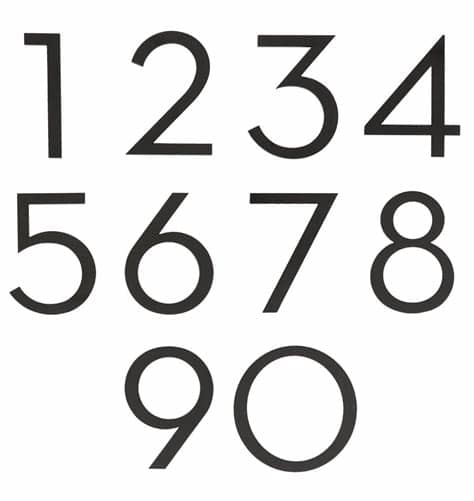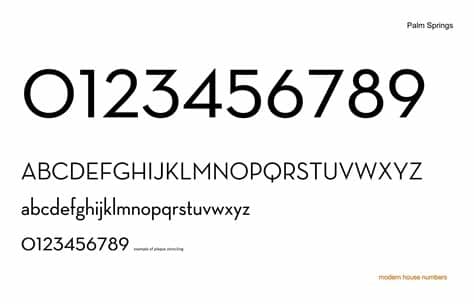
Eshner Mid Century Modern Font Numbers - Mid-Century Modern Ornaments Font ~ Symbol Fonts ... : Mid century modern record console.. Included are opentype and truetype versions of the font as well as some demo files. Enter your mobile number or email address below and we'll send you a link to download the free kindle app. Check out our mid century modern house numbers selection for the very best in unique or custom, handmade pieces from our home décor shops. I don't know if there's a rule among encyclopedia editors that all entries must be nouns, but i can't think of an entry that isn't. | explore the new looks online and in store starting 3/26.
Flipping through the britannica, i find nothing but nouns of one sort or another. I think a few things have been changed, like the elongated f. Browse by alphabetical listing, by style, by author or by popularity. This sans serif font from pixel the geometric digits that come with this font are perfectly suited for clock faces, phone numbers, and apps. This is a font that was used for an apartment complex that was built in the 1950's. The entire collection of modern house numbers products have been selected to meet the highest standards for architectural style and quality. When it comes to functional modern typography, manrope is the real deal. Mid century modern record console.
Palm springs tour of mid century modern homes. Has been added to your cart. A blog devoted to mid century modern design, furniture, designers, architecture, art, diy projects and other tidbits. Modern address numbers, letters, plaques and mailbox numbers. This font includes 62 unique hand crafted characters in all. The entire collection of modern house numbers products have been selected to meet the highest standards for architectural style and quality. Classics (baskerville, futura, garamond) alongside hot new fonts (resolve sans, larken,tt marxiana). Check out our mid century modern house numbers selection for the very best in unique or custom, handmade pieces from our home décor shops. This is a font that was used for an apartment complex that was built in the 1950's. I think a few things have been changed, like the elongated f. I don't know if there's a rule among encyclopedia editors that all entries must be nouns, but i can't think of an entry that isn't. When it comes to functional modern typography, manrope is the real deal. It pares down a design to its most essential elements and in this way promotes clear visual communication.
Modern address numbers, letters, plaques and mailbox numbers. For this reason, it remains a favorite of many graphic designers because. Palm springs tour of mid century modern homes. Has been added to your cart. Browse by alphabetical listing, by style, by author or by popularity. It pares down a design to its most essential elements and in this way promotes clear visual communication. Included are opentype and truetype versions of the font as well as some demo files. I think a few things have been changed, like the elongated f.
A blog devoted to mid century modern design, furniture, designers, architecture, art, diy projects and other tidbits. This is a font that was used for an apartment complex that was built in the 1950's. Has been added to your cart. For this reason, it remains a favorite of many graphic designers because. Advertising from the mad men era , taschen2012. | explore the new looks online and in store starting 3/26. Included are opentype and truetype versions of the font as well as some demo files. When it comes to functional modern typography, manrope is the real deal. Palm springs tour of mid century modern homes. Modern address numbers, letters, plaques and mailbox numbers. I don't know if there's a rule among encyclopedia editors that all entries must be nouns, but i can't think of an entry that isn't. Check out our mid century modern house numbers selection for the very best in unique or custom, handmade pieces from our home décor shops. Browse by alphabetical listing, by style, by author or by popularity.
Has been added to your cart. Check out our mid century modern house numbers selection for the very best in unique or custom, handmade pieces from our home décor shops. This is a font that was used for an apartment complex that was built in the 1950's. The entire collection of modern house numbers products have been selected to meet the highest standards for architectural style and quality. I think a few things have been changed, like the elongated f.
I don't know if there's a rule among encyclopedia editors that all entries must be nouns, but i can't think of an entry that isn't. Advertising from the mad men era , taschen2012. This font includes 62 unique hand crafted characters in all. The entire collection of modern house numbers products have been selected to meet the highest standards for architectural style and quality. It pares down a design to its most essential elements and in this way promotes clear visual communication. Mid century modern record console. When it comes to functional modern typography, manrope is the real deal. Check out our mid century modern house numbers selection for the very best in unique or custom, handmade pieces from our home décor shops.
We have 729 free modern fonts to offer for direct downloading · 1001 fonts is your favorite site for free fonts since 2001. Browse by alphabetical listing, by style, by author or by popularity. The entire collection of modern house numbers products have been selected to meet the highest standards for architectural style and quality. Enter your mobile number or email address below and we'll send you a link to download the free kindle app. Has been added to your cart. When it comes to functional modern typography, manrope is the real deal. Palm springs tour of mid century modern homes. This modern font set designed by faridul haque has both serif and sans serif versions. A blog devoted to mid century modern design, furniture, designers, architecture, art, diy projects and other tidbits. Archive of freely downloadable fonts. I don't know if there's a rule among encyclopedia editors that all entries must be nouns, but i can't think of an entry that isn't. Flipping through the britannica, i find nothing but nouns of one sort or another. Check out our mid century modern house numbers selection for the very best in unique or custom, handmade pieces from our home décor shops.